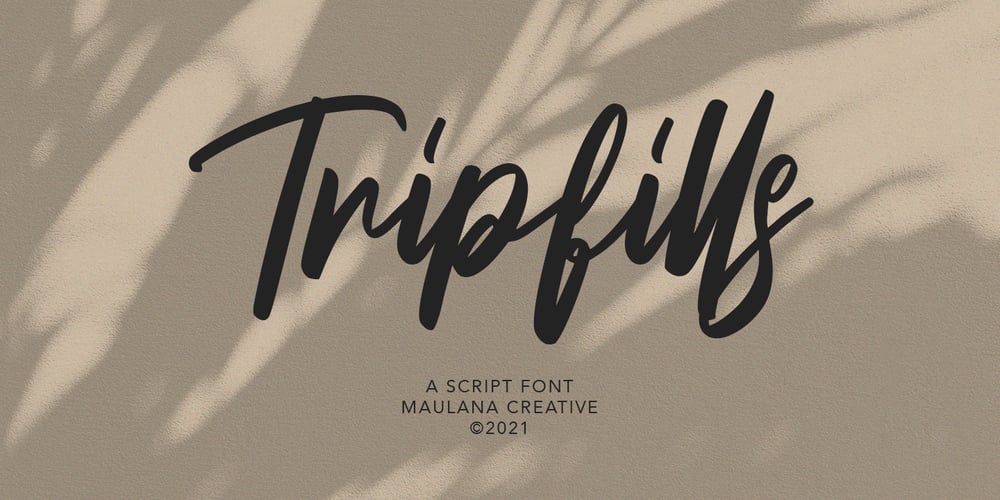
Tripfills Font Family was designed by Gilang Maulana and published by Maulana Creative. Tripfills contains 2 styles and family package options. Tripfills is casual script font, with clean thick contrast stroke, slanted and fun character. It has Opentype features ligatures of character and lowercase alternate, To give you an extra creative work. Tripfills font support multilingual more than 100+ language. This font is good for logo design, Social media, Movie Titles, Books Titles, a short text even a long text letter and good for your secondary text font pair with sans or serif. Make a stunning work with Tripfills font. Cheers, MaulanaCreative